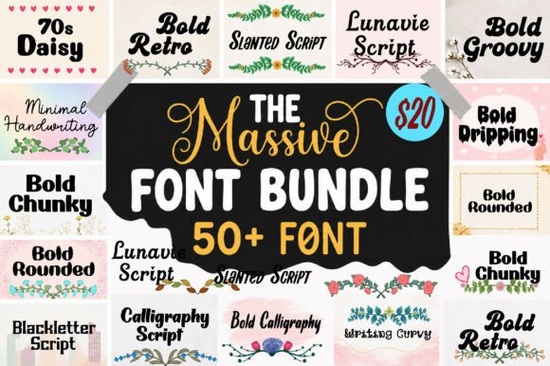
If you work with print-on-demand items or run a small creative business, having a solid library of typefaces is essential. You do not need to buy individual fonts constantly when The Massive Mega Bundle Font exists as a complete package. This collection brings over 50 distinct styles together in one download, saving you time and money on separate purchases. Whether you need bold headlines for posters or delicate scripts for wedding invitations, this set covers most bases without requiring you to hunt through dozens of websites.
Why variety matters in your typography selection
When starting a project, you often find that your initial idea changes as you progress. A playful display font might feel wrong after you sketch out a layout, leading you to scrap the design entirely. Having access to various display options included allows you to pivot quickly without waiting for new assets. You can switch from a modern sans-serif to a hand-lettered script in seconds.
This bundle specifically targets users who need flexibility. You get everything from gothic lettering to sporty styles. If you enjoy creating cute stickers or mugs, softer typefaces like Cute Humble offer a friendly aesthetic that resonates with buyers. On the flip side, serious brands might prefer the heavy weight of bold headline fonts available in the pack. It ensures you are not stuck with one specific mood for every client request.
Selecting the right style for your audience
Different products require different visual tones. A summer beach shirt looks best with vibrant, retro styles similar to those found in Disco Charm displays. Meanwhile, seasonal crafts benefit from atmospheric themes inspired by collections like Rainy Winter. Understanding your customer is crucial here; a luxury skincare brand will need elegant serifs rather than the rough textures found in Varsity Rough fonts.
Using the files in your design software
Another advantage is consistency. When you build a brand, using a cohesive family of typefaces creates a professional image. Since these 50+ fonts come from the same studio or collection team, they often share character sets and spacing logic. This makes it easier to pair a header with a body paragraph that looks like it belongs to the same language. It simplifies the decision-making process when building a brand identity kit.